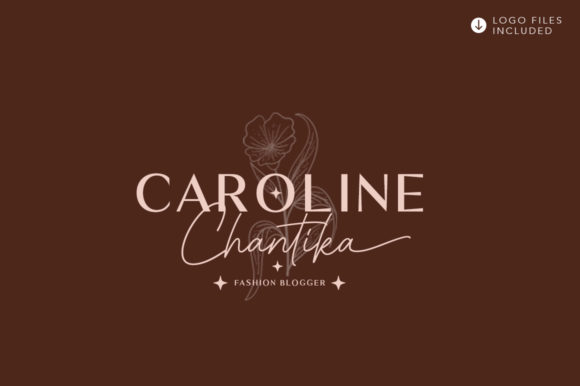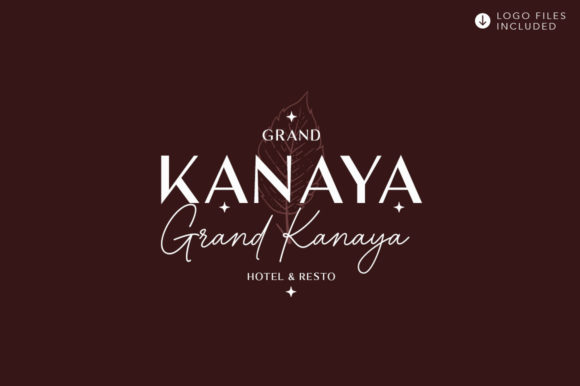
Kalista Font
db-ku.com - Script & Handwritten -- Kalista is a luxurious duo font, which comes with a combination of modern and elegant styles, namely sans serif and signature. You can combine these two to create a beautiful typography. This handcrafted style makes it perfect to use in all your design projects be it logos, labels, packaging designs, blog titles, posters, wedding designs, social media posts and much more.